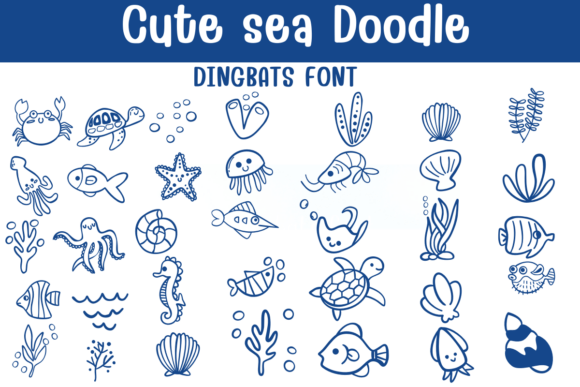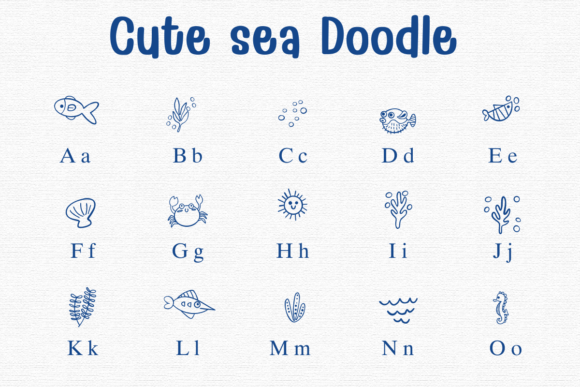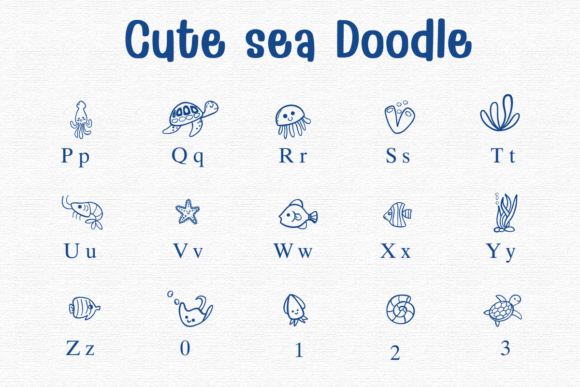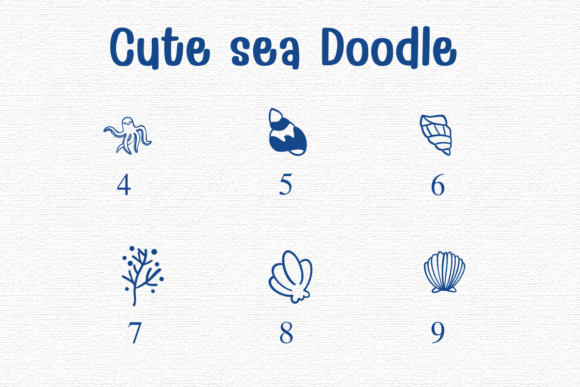
Cute Sea Doodle Font
About the Cute Sea Doodle Font
Explore the possibilities with Cute Sea Doodle Font, a font that offers both beauty and functionality. Cute Sea Doodle is a playful dingbats font filled with hand-drawn ocean life—fish, crabs, jellyfish, shells, seaweed, and more. Ideal for kids’ projects, ocean-themed crafts, and underwater illustrations, this font makes waves of creativity easy to add.
Cute Sea Doodle’s playful nature makes it perfect for children’s books, branding for aquatic businesses (aquariums, swim schools), and playful packaging designs. It also works well in short social media posts or whimsical posters where its illustrative style is the focal point. However, its low readability makes it unsuitable for body text, long paragraphs, or UI elements requiring clear legibility.
Consider pairing Cute Sea Doodle with a clean sans-serif like Open Sans for body text or a more structured serif like Merriweather for supporting text to create a balance between playfulness and readability. A simple script font could add a touch of elegance to invitations or logos.
The font projects a friendly, whimsical personality, ideal for brands targeting a young audience or conveying a lighthearted and approachable message. Avoid using it in contexts demanding seriousness or sophistication.
Cute Sea Doodle Font Usage Examples
Cute Sea Doodle Font Example